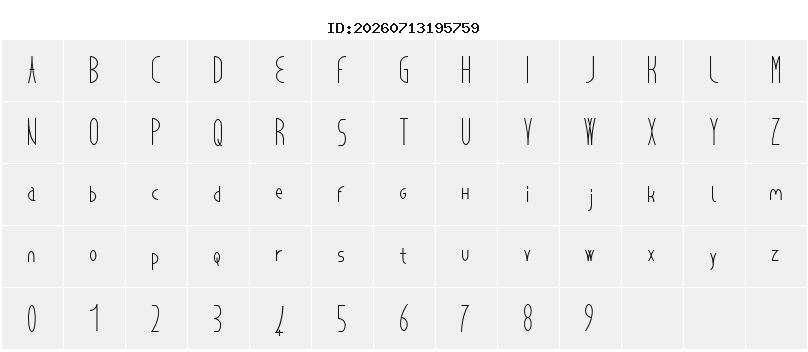
• Font Name: cancello
• Full Font Name: cancello
• PostScript Name: cancello
About cancello.otf
cancello.otf is a modern, elegant sans-serif font designed for ultimate readability and visual harmony. Perfect for branding, headlines, web design, and print materials.